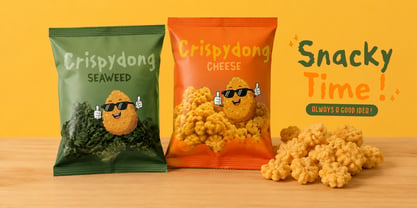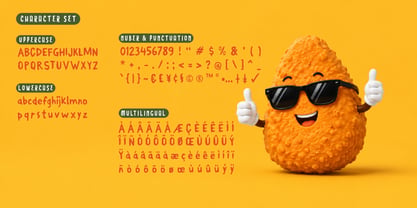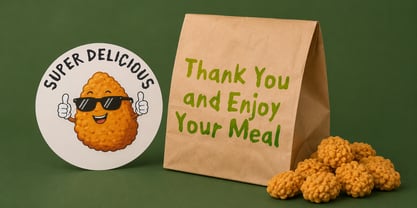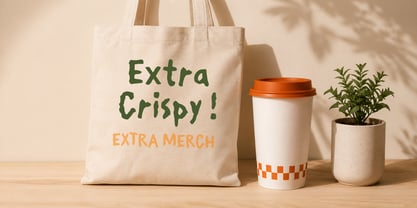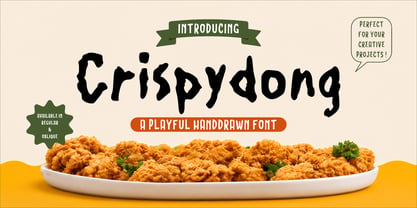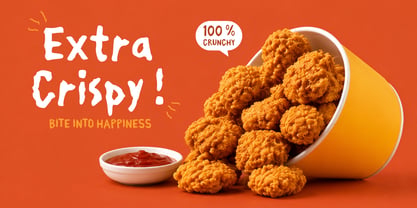
Crispydong
Crispydong is a playful and quirky display font inspired by hand-cut organic shapes, melted forms, and whimsical doodles. Its irregular contours and bold character design create a fun, expressive personality that instantly grabs attention. Perfect for children's books, posters, branding, packaging, social media graphics, logos, merchandise, stickers, and creative projects that need a unique handcrafted touch.
With its charming imperfect style, Crispydong delivers a friendly and memorable visual impact while maintaining excellent readability at display sizes. Whether you're designing for playful brands, artistic products, or imaginative storytelling, this font adds character and originality to every composition.
Features
• Uppercase & Lowercase
• Numbers & Punctuation
• Multilingual Support
• PUA Encoded
• Regular & Oblique Style
Perfect For
Kids Branding, Cartoon Projects, Toy Packaging, Posters, Book Covers, Social Media, Stickers, Apparel Design, Creative Logos, Product Packaging, Craft Projects, and Fun Display Typography.